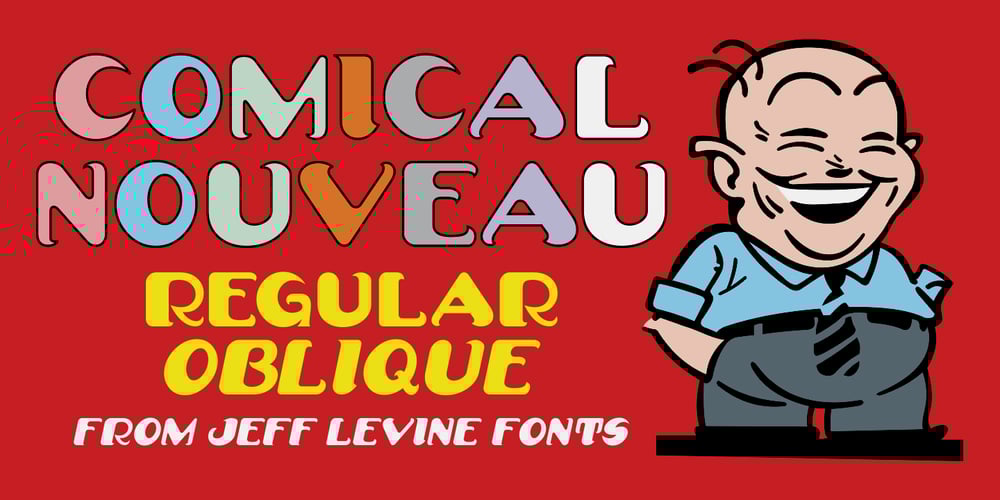
Comical Nouveau JNL
Comical Nouveau JNL font
Comical Nouveau JNL Font Family was designed by Jeff Levine and published by Jeff Levine. Comical Nouveau JNL contains 2 styles and family package options. An ad in the December 4, 1920 issue of Motion Picture News for International News [newsreels] featured some unusual hand lettering in a casual, eccentric Art Nouveau Style that was more playful than formal. This has been redrawn digitally as Comical Nouveau JNL, and is available in both regular and oblique versions.